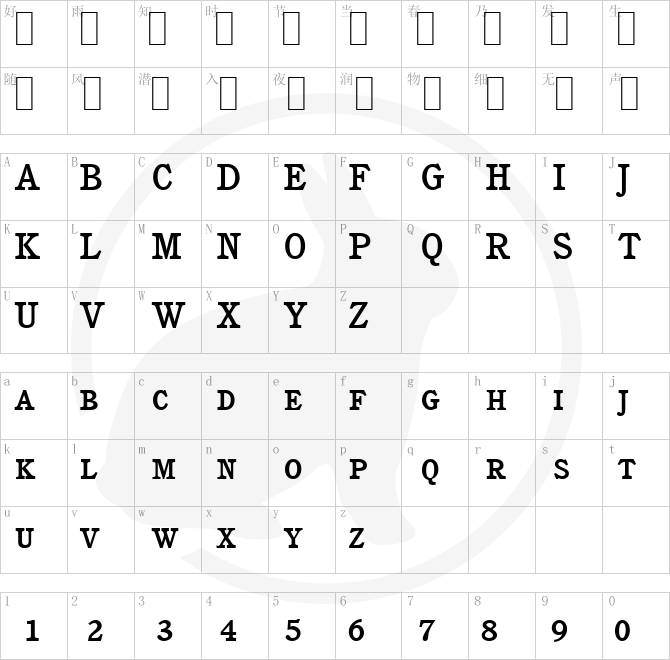
- Font Name:C851-Roman-Smc
- Full Name:C851-Roman-Smc-Bold
C851-Roman-Smc-Bold.ttf is a very beautiful artistic font, C851-Roman-Smc-Bold.ttf is widely used in the design and printing of various books and pictures,C851-Roman-Smc-Bold.ttf has a strong visual impact,C851-Roman-Smc-Bold.ttf is a commonly used font in newspapers, magazines and books, and is used in posters, e-commerce Poster design, store design, logo design, font design and other fields.C851-Roman-Smc-Bold.